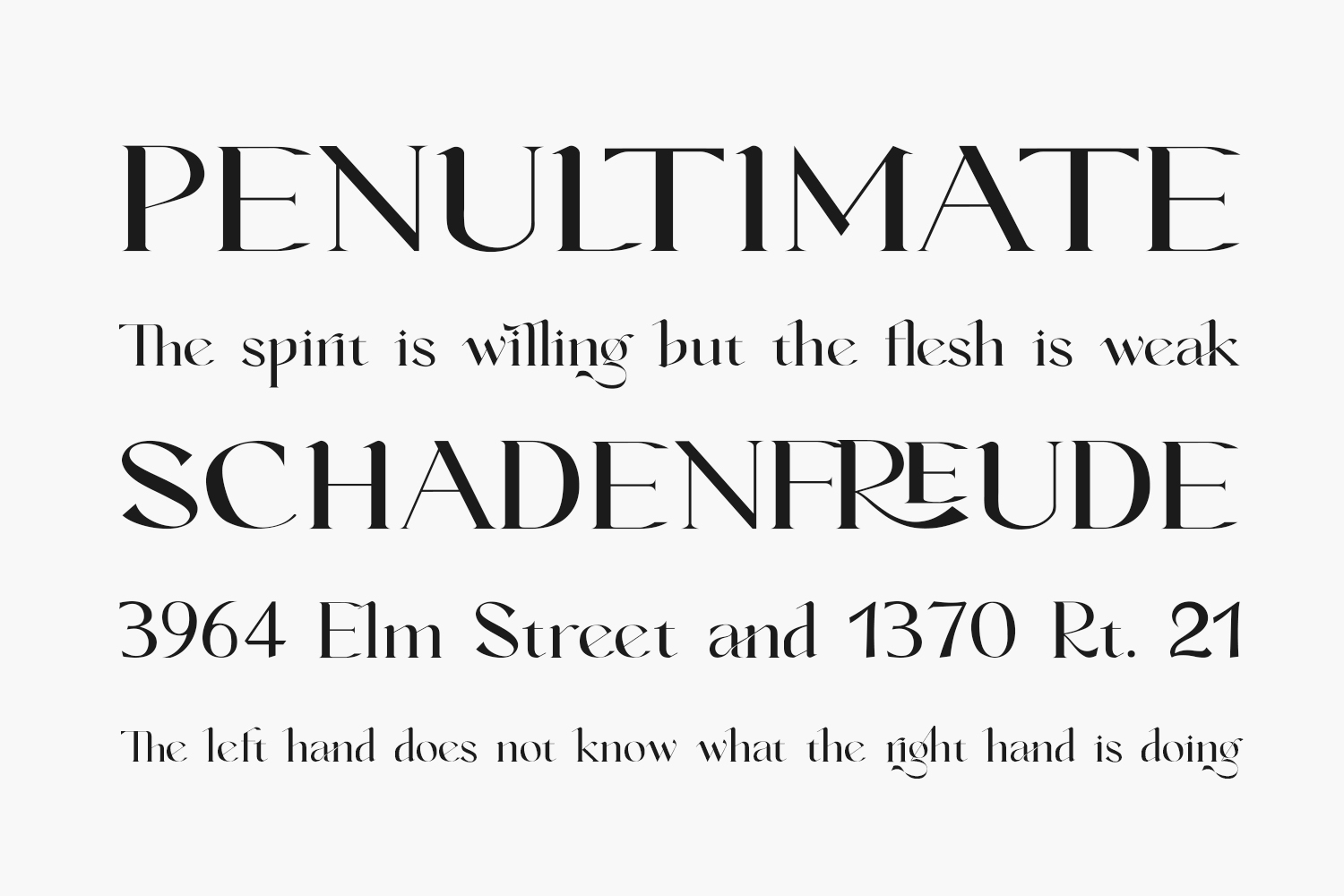
Vanger Free Font is an elegant and distinct serif font. This font is PUA encoded which means you can access all of the glyphs and swashes with ease! Add this trendy font to any creation and notice how it makes it come alive. Vanger Free Font was designed by Saiful Fahri and is free for personal use only. Please purchase the full version for commercial use.
Designed by Saiful Fahri